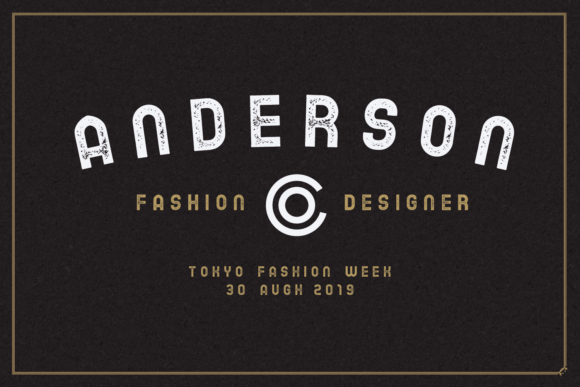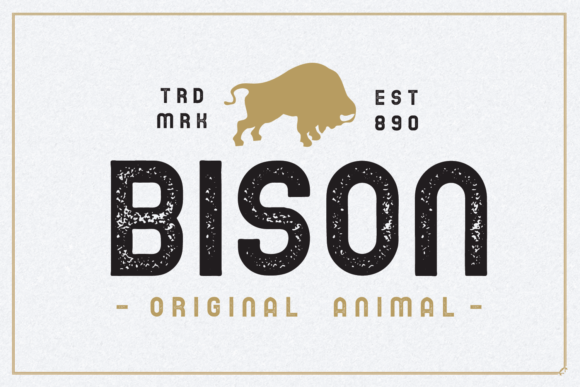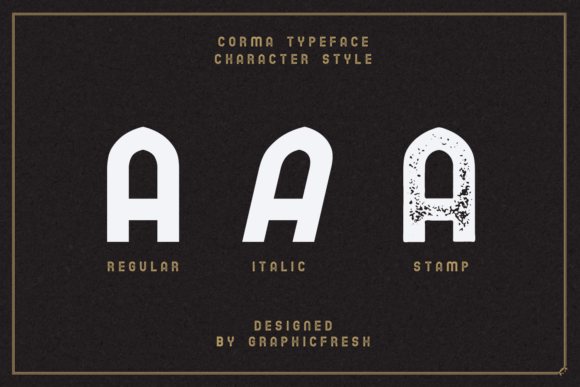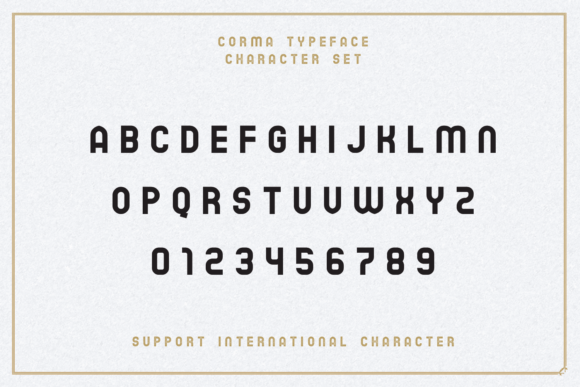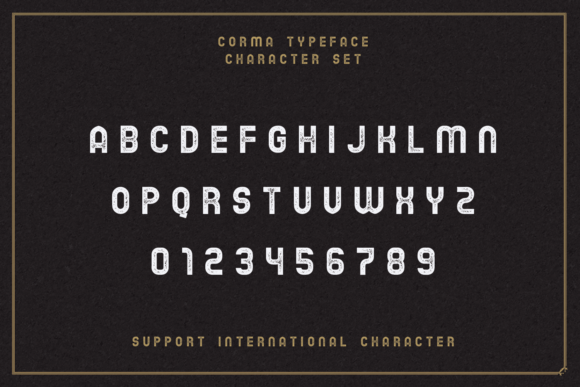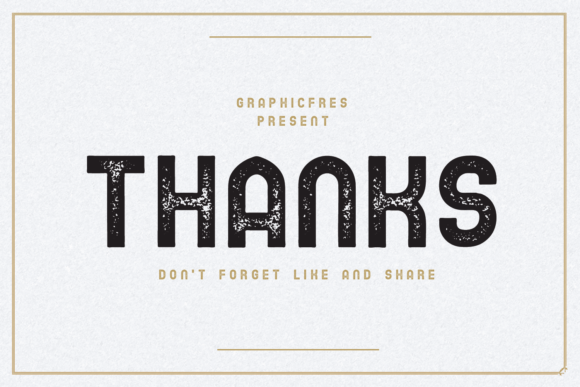
Corma Family Font: A Vintage Display Font Inspired by the Majestic Date Palm
The Corma Family Font: A Vintage Display Font
The Corma Family Font is a vintage display font that includes regular and textured versions, as well as Italic versions of each. This beautiful font is perfect for designers and crafters looking to add a touch of elegance and sophistication to their projects. Whether you’re working on a logo, name card, magazine layout, invitation, header, or even large-scale artwork, the Corma Family Font is the perfect choice.
Inspiration from Nature
The Corma Family Font is inspired by the majestic date palm, a tree that has been a symbol of life and prosperity for centuries. The date palm is known for its slender trunk, feathery leaves, and delicious fruit. It’s a tree that has been cultivated for thousands of years, and its fruit has been a staple in many cultures. The font’s creator was inspired by the beauty and elegance of the date palm, and sought to capture its essence in a font that would be both stylish and versatile.
Features of the Corma Family Font
The Corma Family Font is a feature-rich font that includes:
- Regular and textured versions: The font includes both regular and textured versions, allowing you to choose the one that best suits your project.
- Italic versions: The font also includes Italic versions of each style, giving you even more options for expressing yourself.
- High-quality design: The font is designed with high-quality craftsmanship, ensuring that it looks great in any size or application.
Uses for the Corma Family Font
The Corma Family Font is perfect for a wide range of projects, including:
- Logos: The font’s elegant and sophisticated design makes it perfect for logos that need to convey a sense of luxury and refinement.
- Name cards: The font’s classic design makes it perfect for name cards, which need to be both stylish and professional.
- Magazine layouts: The font’s versatility makes it perfect for magazine layouts, where you need to convey a sense of style and sophistication.
- Invitations: The font’s elegant design makes it perfect for invitations, which need to convey a sense of luxury and refinement.
- Headers: The font’s bold and stylish design makes it perfect for headers, which need to grab the reader’s attention.
- Large-scale artwork: The font’s high-quality design makes it perfect for large-scale artwork, where you need to ensure that the text looks great even at large sizes.
| Font Name | Corma Family Font |
| Author | Graphicfresh |